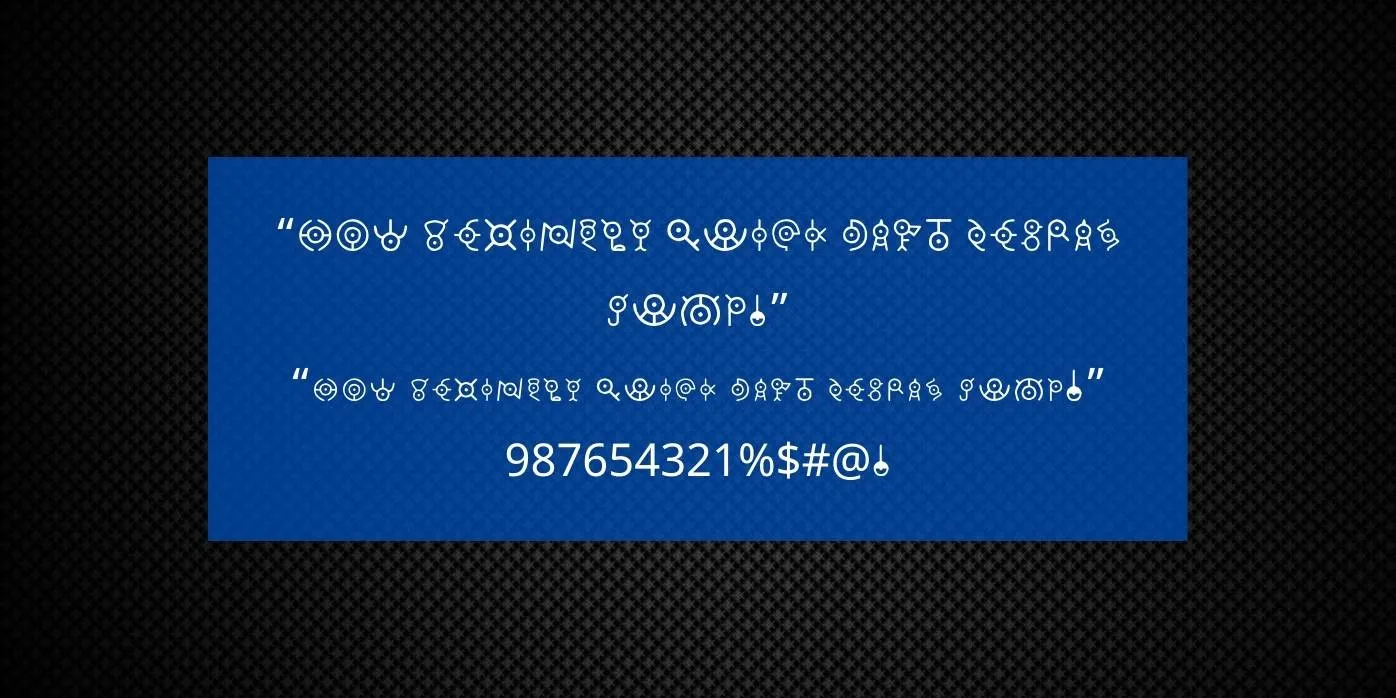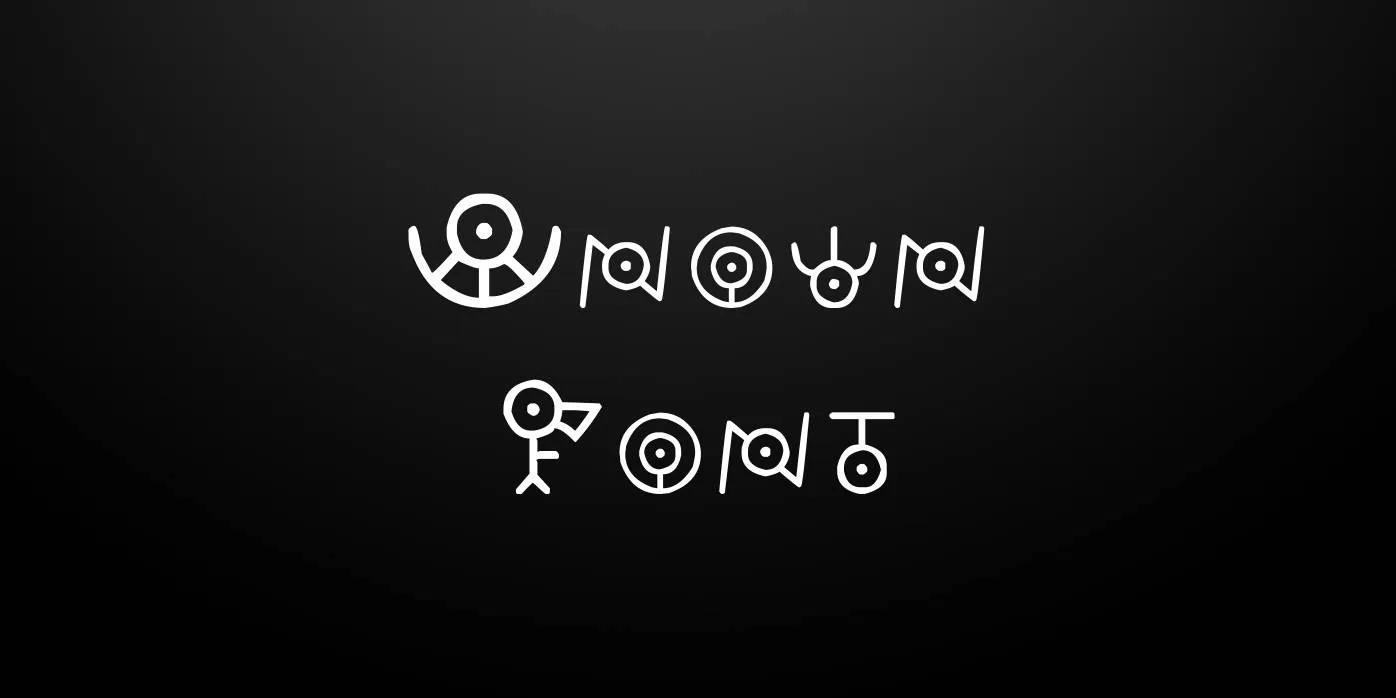
Unown Font
Unown Font is a famous typeface that belongs to the fancy family. This marvelous typeface was developed by Arien Epic. This typeface is best for Google Docs and other platforms. You can use it for CSS.
Unown Font is perfect for those who need a unique and stylish typeface. The font includes 50 unique characters. Each character has special features that make it stand out from the rest. For more classic features, you will have to use its alternative bentham regular font which has the same features.
The Unown Font package includes 5 different versions: Regular, Italic, Bold, Condensed, and Expanded. You can use any version you want depending on your project requirements. You will have to utilize its online generator tool for your graphic design projects. The copy and paste function of this family is very classic.